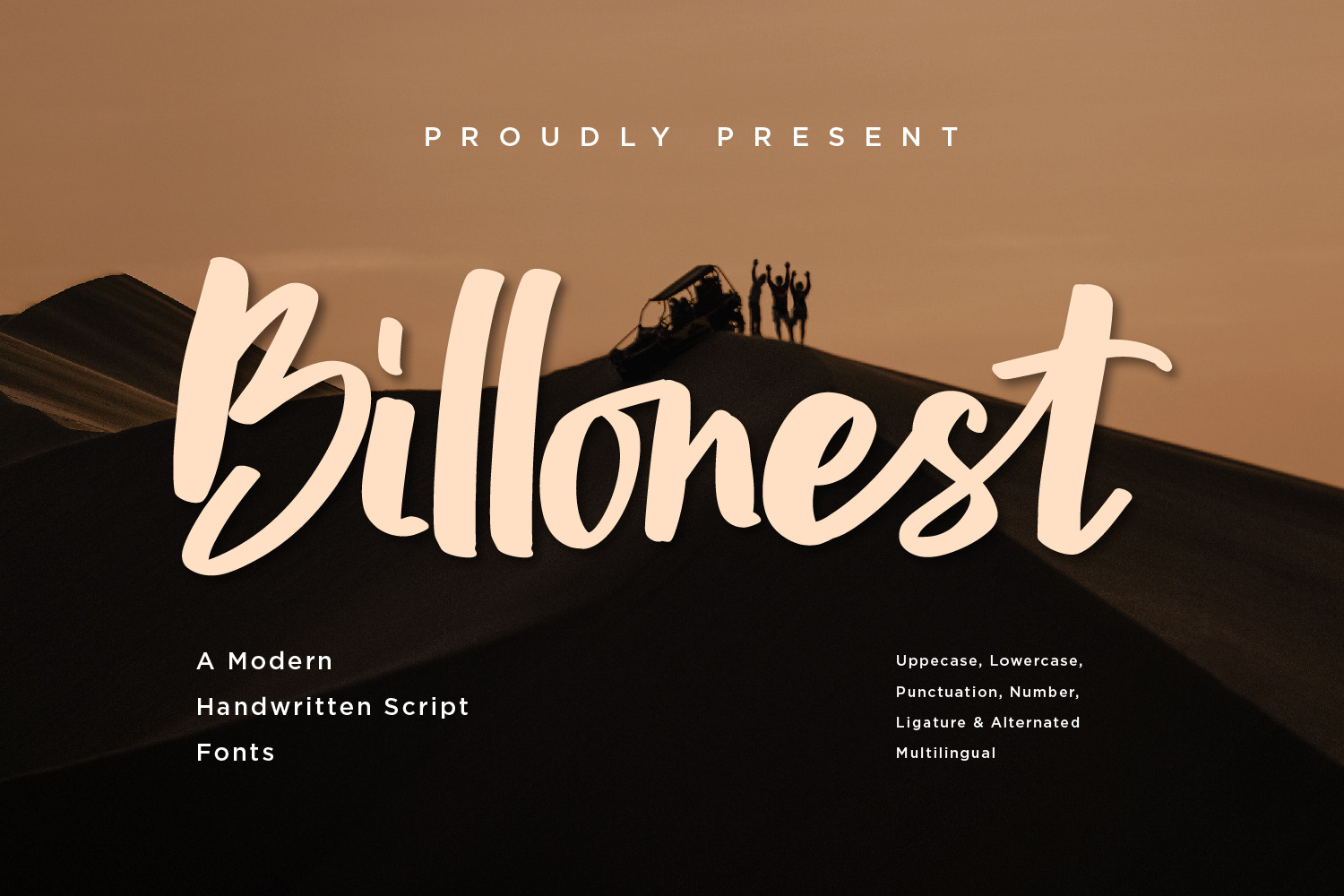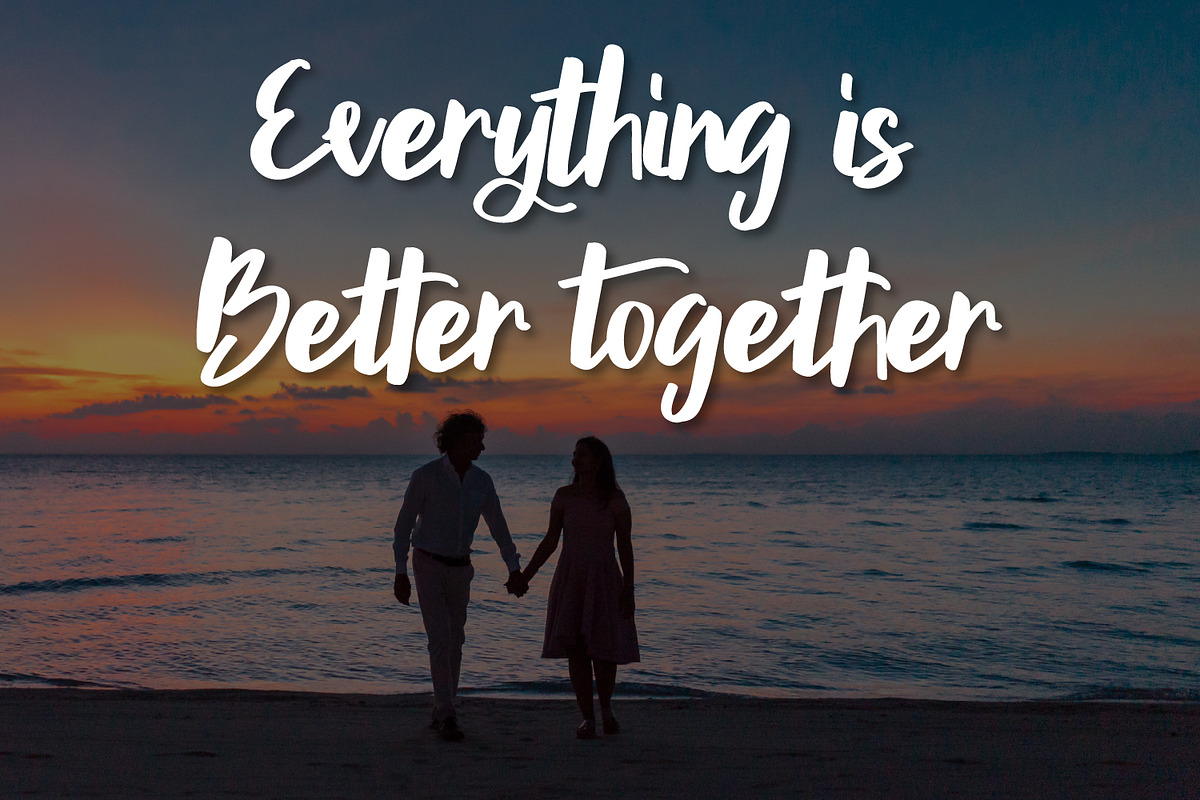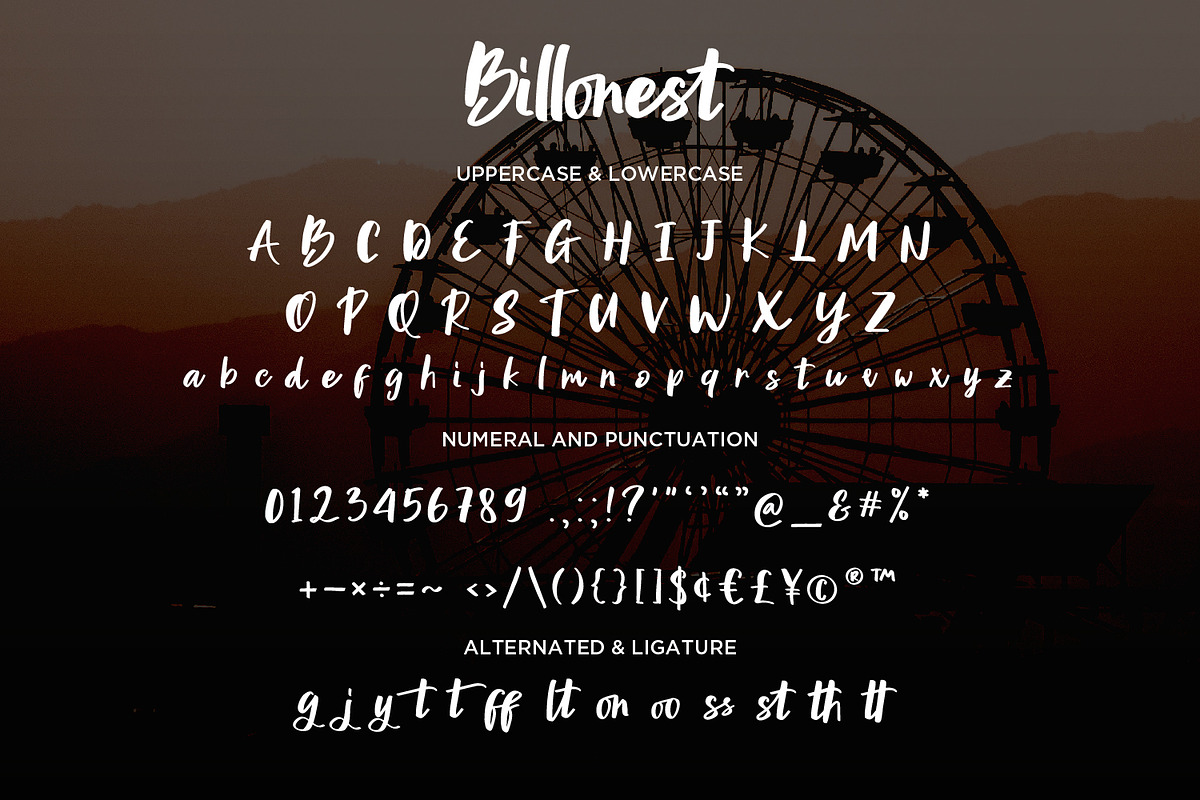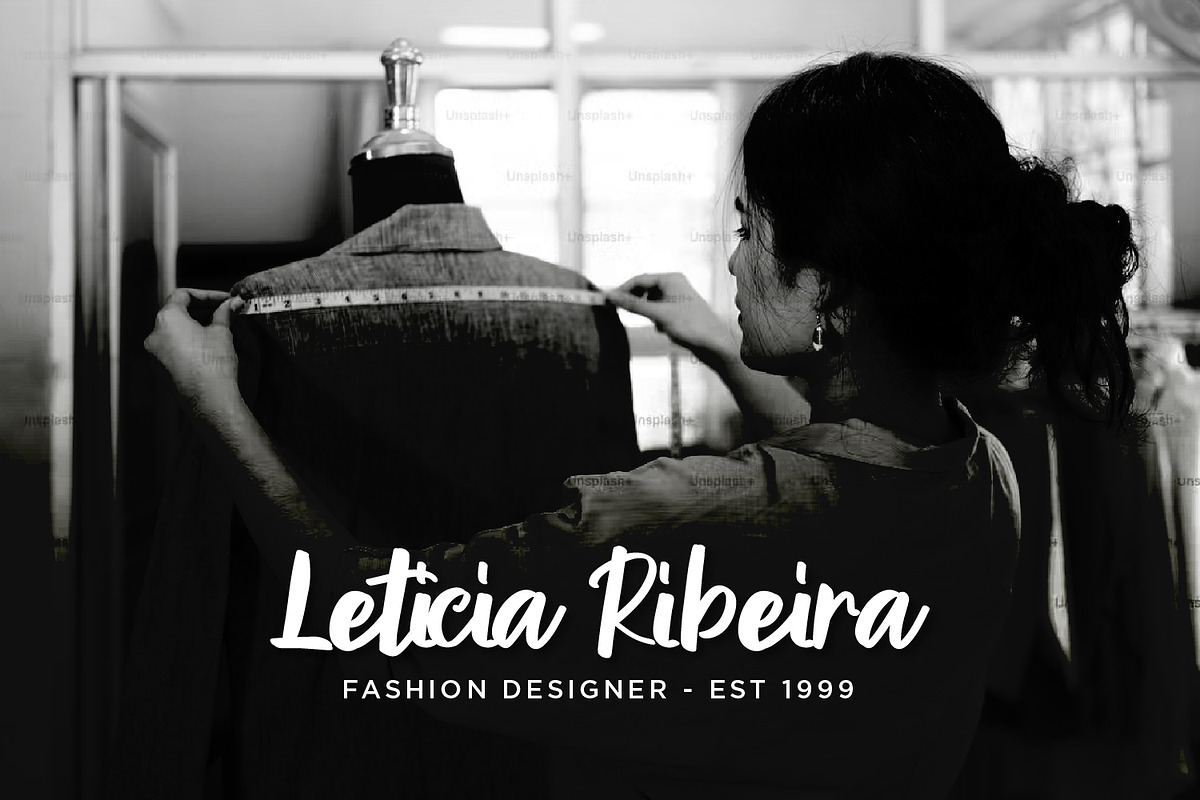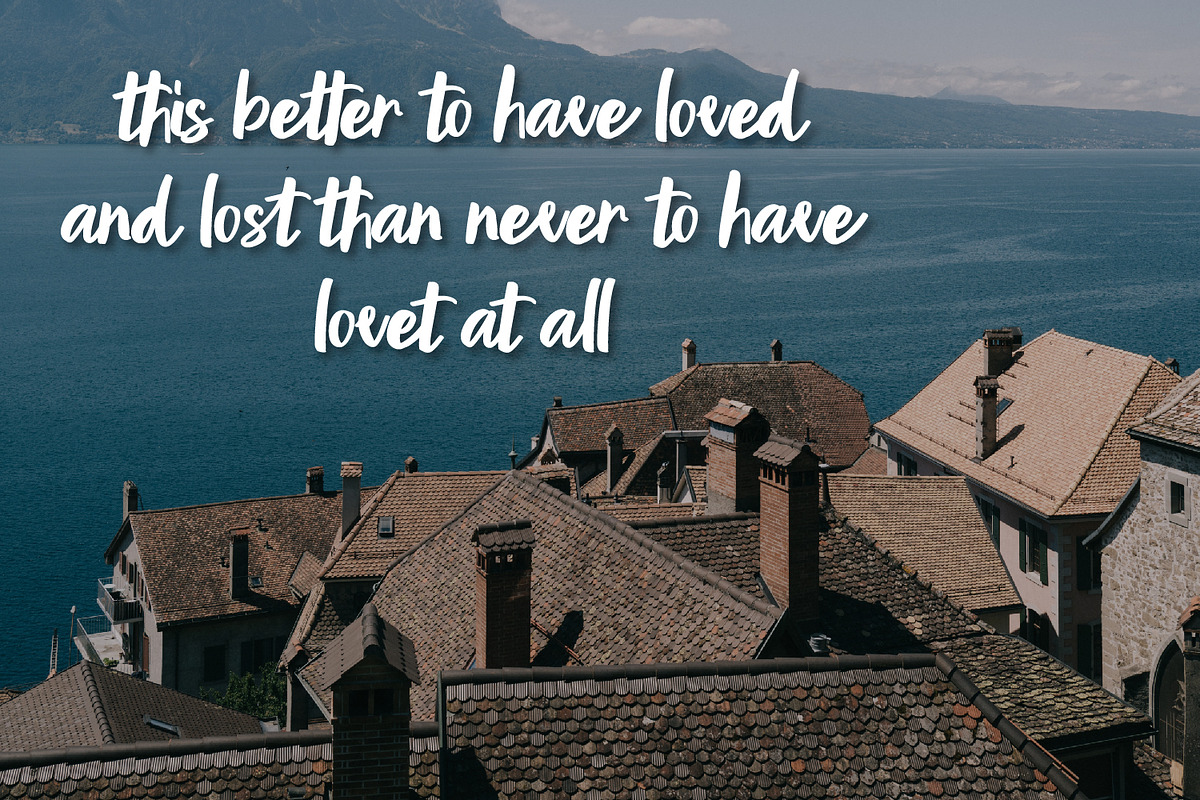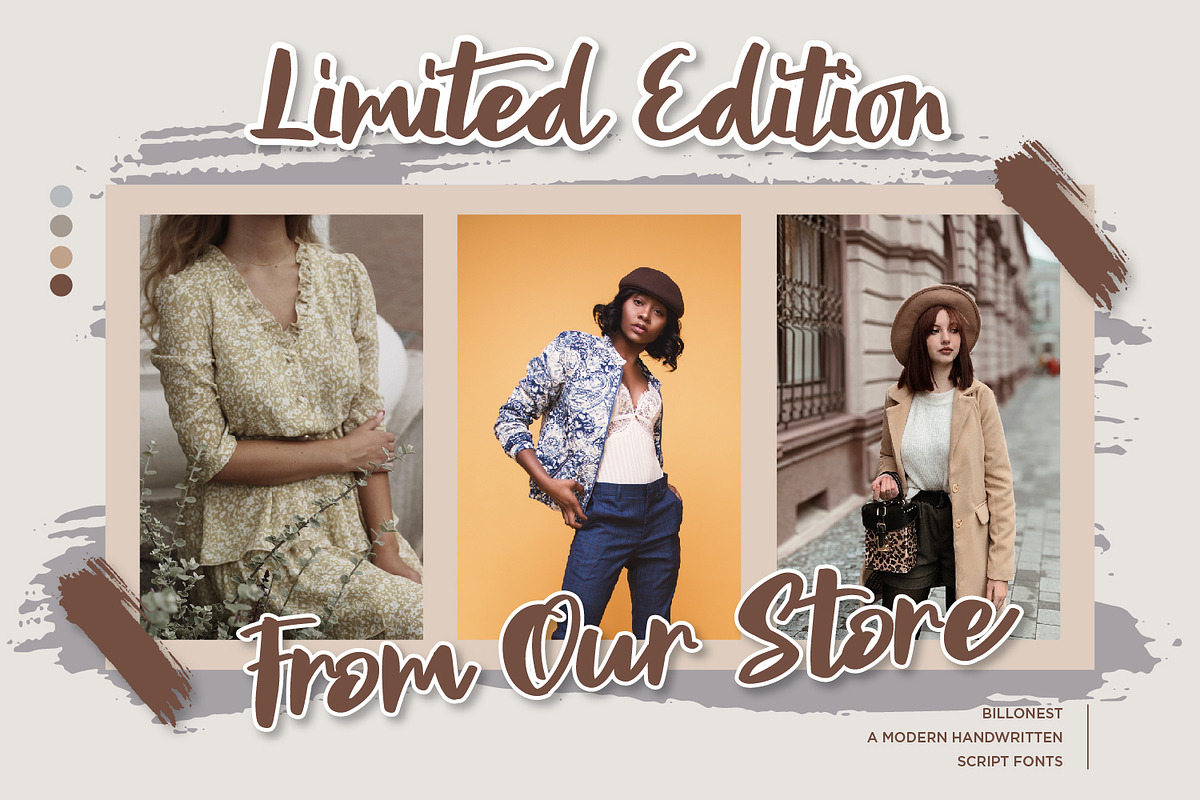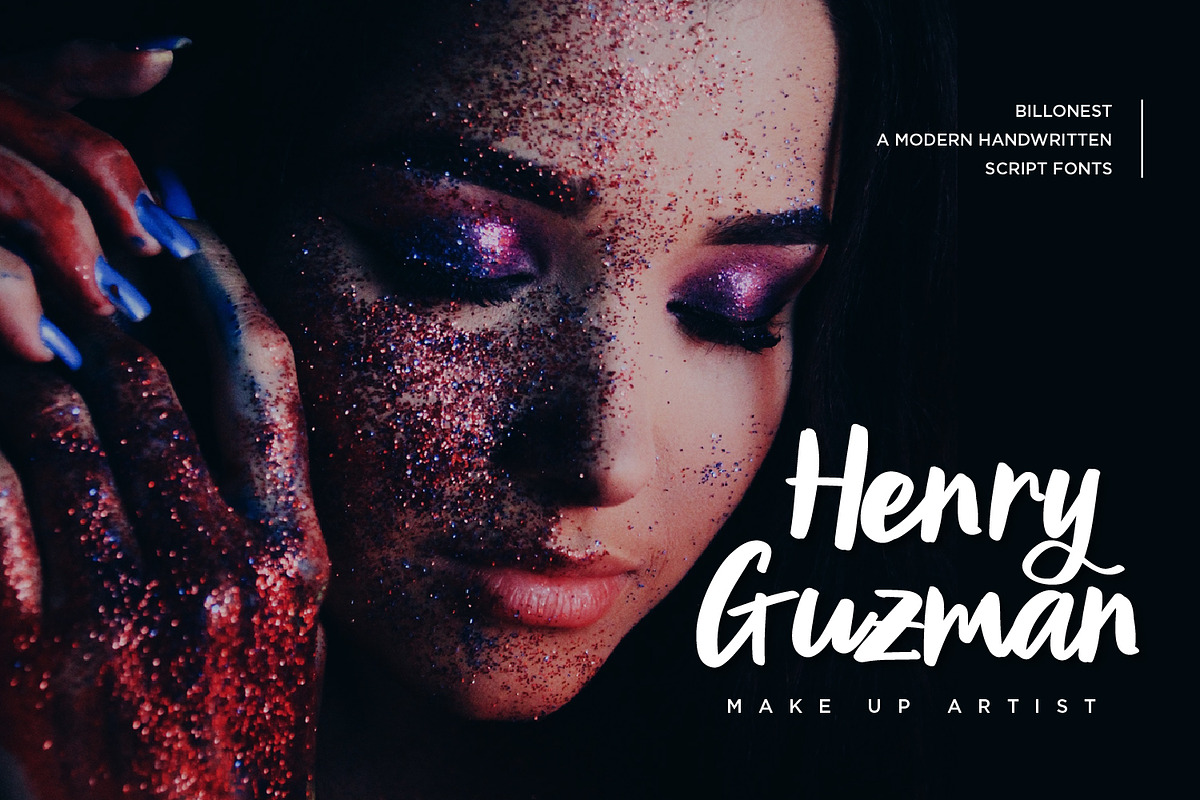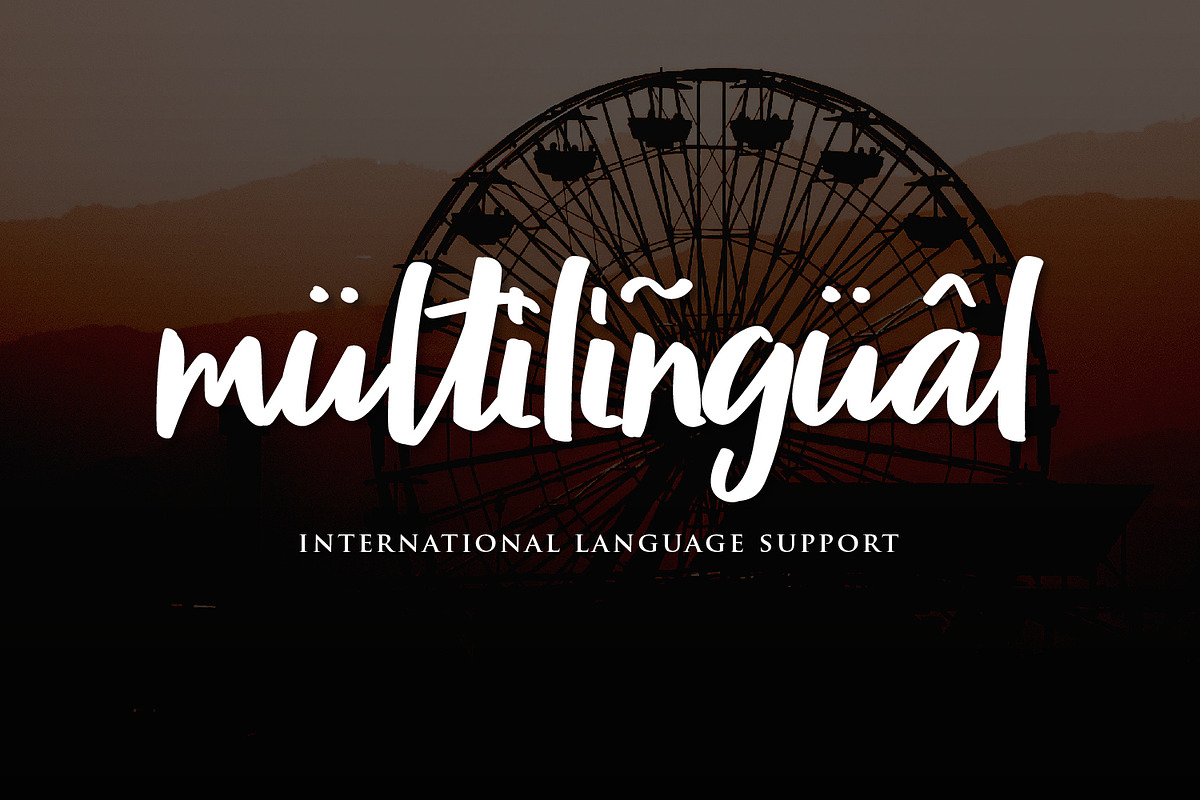
Billonest - Modern Script fonts
Billonest is a Modern script font, will be suitable for any projects such as branding, promotional ads, quotes design, merchandise, social media and much more. make your work or your business to high level!!! special events, and all your other lovely projects that need beautiful handwriting taste.